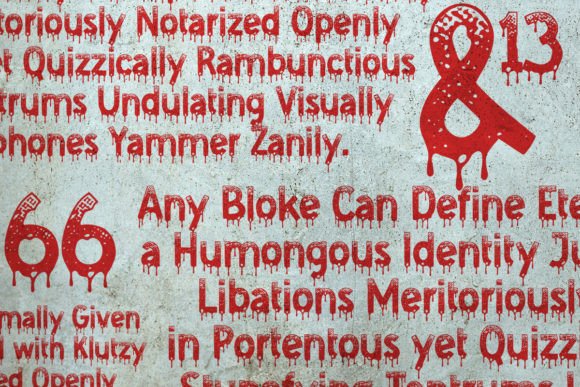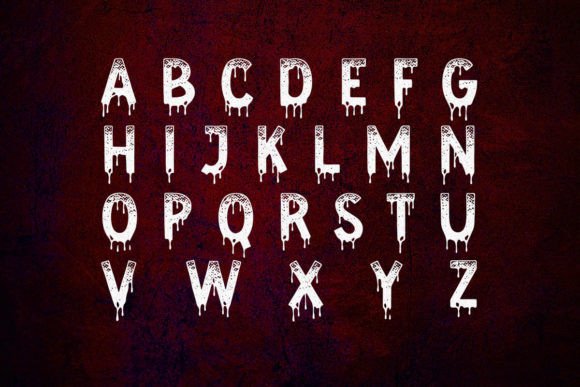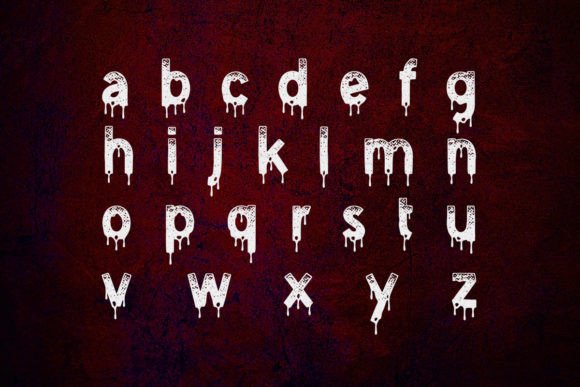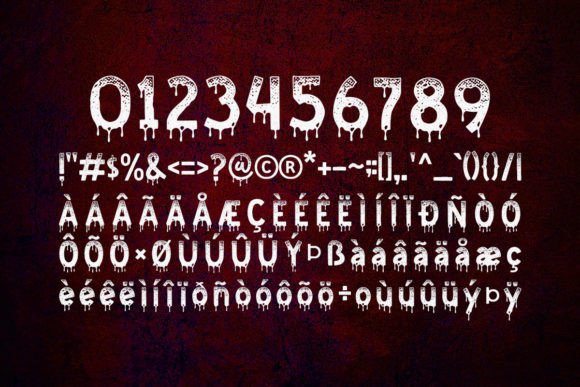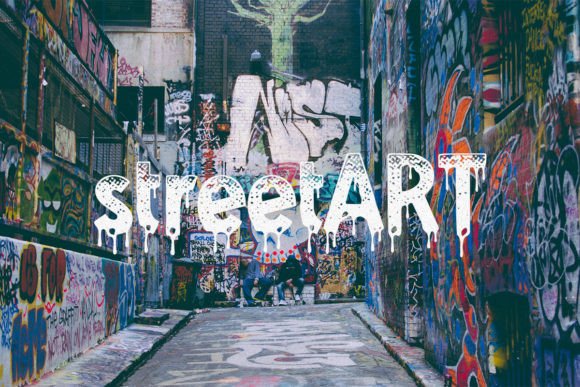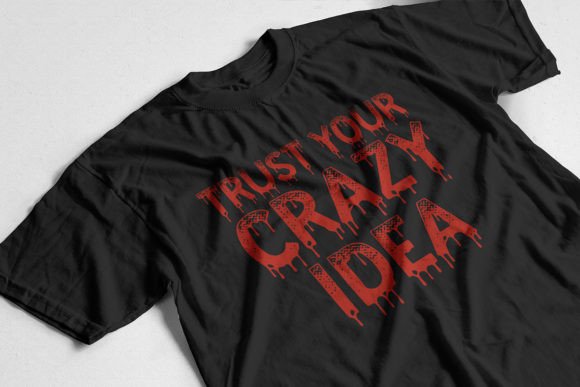
Unleash the Horror with Deadly Poison II Font
Are you a horror movie enthusiast, a graphic artist, or someone who loves the undead? Look no further than the Deadly Poison II font, the perfect typeface to add a touch of blood and death to your projects. This font is designed to evoke the eerie and spine-tingling atmosphere of horror movies, making it ideal for a wide range of applications, from video game titles to posters, outfits, album covers, and more.
The Perfect Font for Horror Enthusiasts
Deadly Poison II is a carefully crafted font that embodies the spirit of horror and the undead. Its unique design features blood-stained letters, adding a touch of gore and eeriness to any project. The font’s distressed and worn look gives it a post-apocalyptic feel, perfect for creating a sense of unease and tension. Whether you’re working on a horror movie title sequence, a video game cover, or a spooky poster, Deadly Poison II is the perfect choice.
Key Features of Deadly Poison II Font
- Unique Design: Deadly Poison II features a one-of-a-kind design that sets it apart from other fonts. Its blood-stained letters and distressed look make it perfect for horror-themed projects.
- Versatile: This font is suitable for a wide range of applications, including video game titles, posters, outfits, album covers, horror movies, and more.
- Eerie and Spine-Tingling: Deadly Poison II is designed to evoke the eerie and spine-tingling atmosphere of horror movies, making it perfect for creating a sense of unease and tension.
Use Cases for Deadly Poison II Font
Deadly Poison II is a versatile font that can be used in a variety of projects, including:
- Horror Movie Titles: Create a spine-tingling title sequence for your horror movie with Deadly Poison II.
- Video Game Covers: Add a touch of horror to your video game cover with this font.
- Posters and Flyers: Create eye-catching posters and flyers for horror-themed events or promotions.
- Outfits and Merchandise: Use Deadly Poison II to create spooky outfits and merchandise, such as t-shirts, hats, and more.
- Album Covers: Add a touch of darkness to your music album cover with this font.
Tips for Using Deadly Poison II Font
Here are some tips for getting the most out of Deadly Poison II:
- Experiment with Colors: Try pairing Deadly Poison II with different colors to create a unique look.
- Use it Sparingly: Use Deadly Poison II sparingly to create a greater impact.
- Combine with Other Fonts: Combine Deadly Poison II with other fonts to create a unique look.
Deadly Poison II is the perfect font for horror enthusiasts, graphic artists, and anyone who loves the undead. Its unique design, versatility, and eerie atmosphere make it ideal for a wide range of projects. Whether you’re working on a horror movie title sequence, a video game cover, or a spooky poster, Deadly Poison II is the perfect choice. So why wait? Download Deadly Poison II today and unleash the horror in your designs!